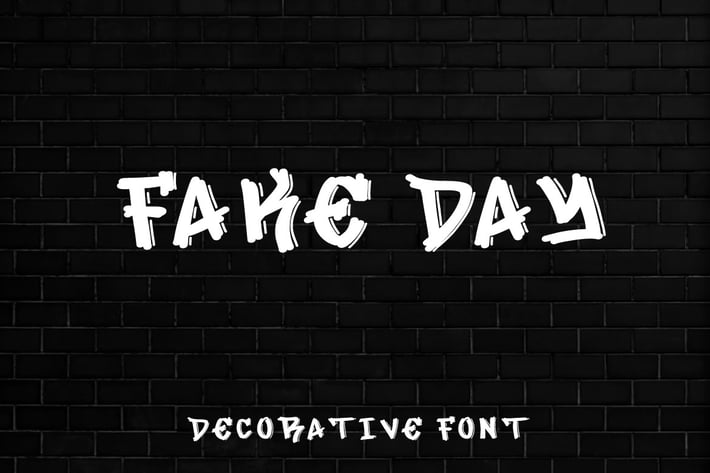
Fake Day - Decorative Graffiti Style Font
Hello! looking for a font with street art style? Fake Day is here!
Fake Day can be used in any works such as logo, wall art, apparel branding, team logo and many more.